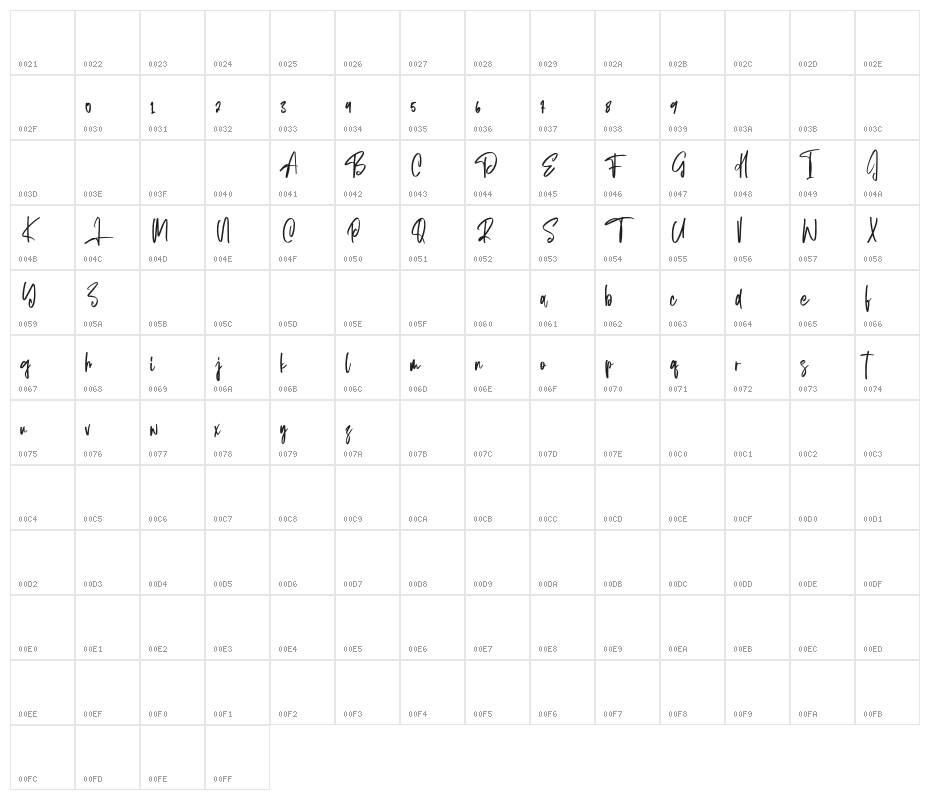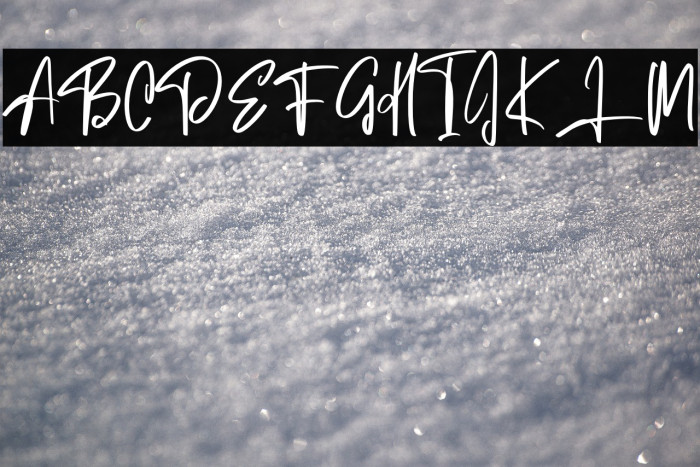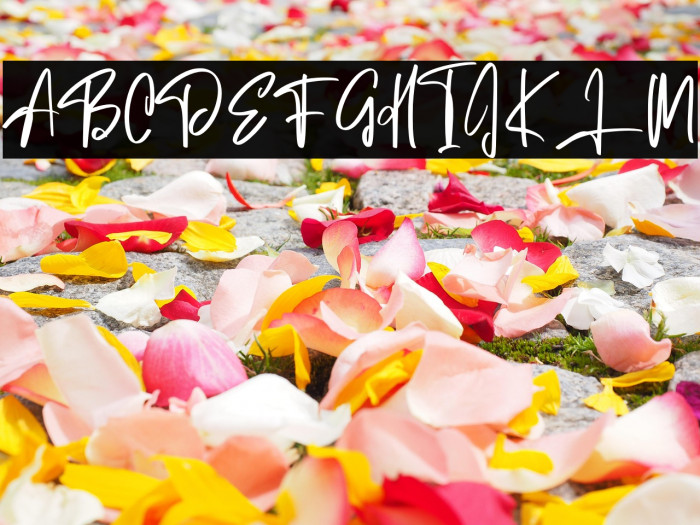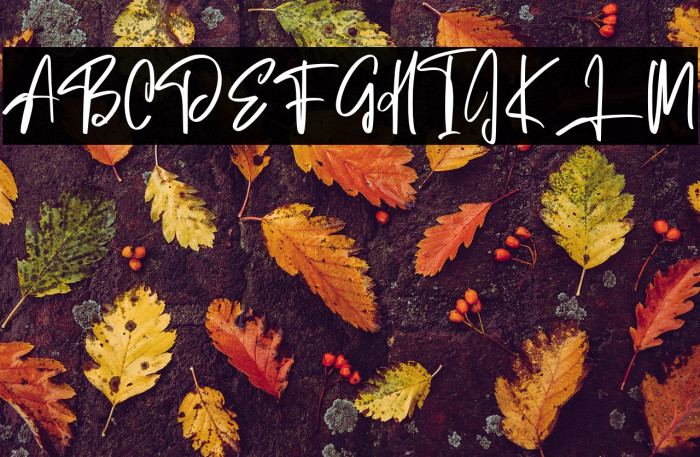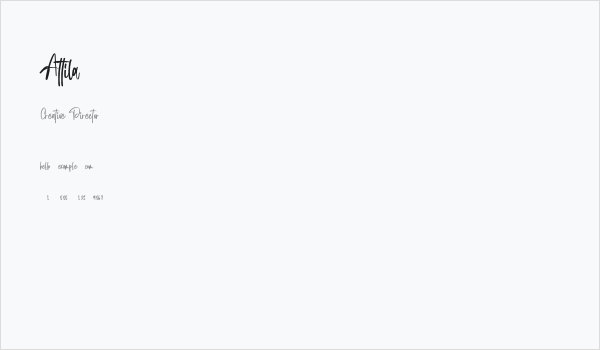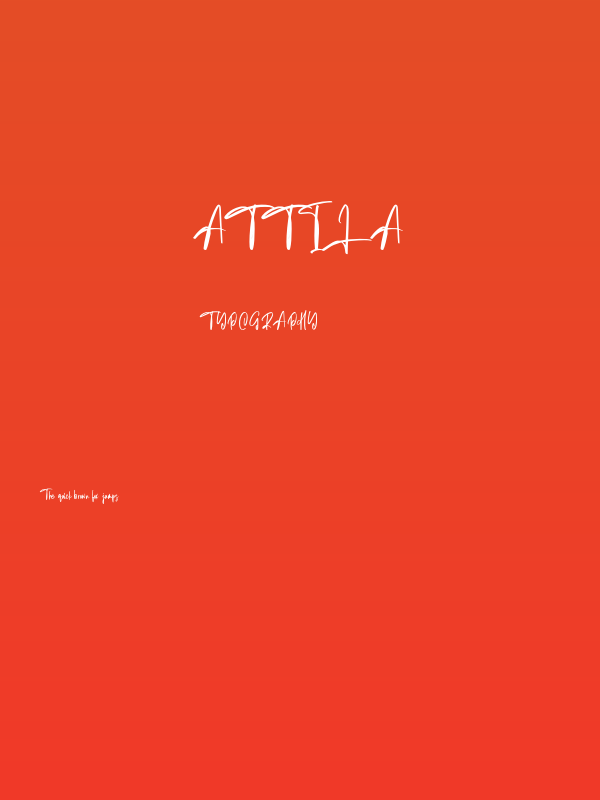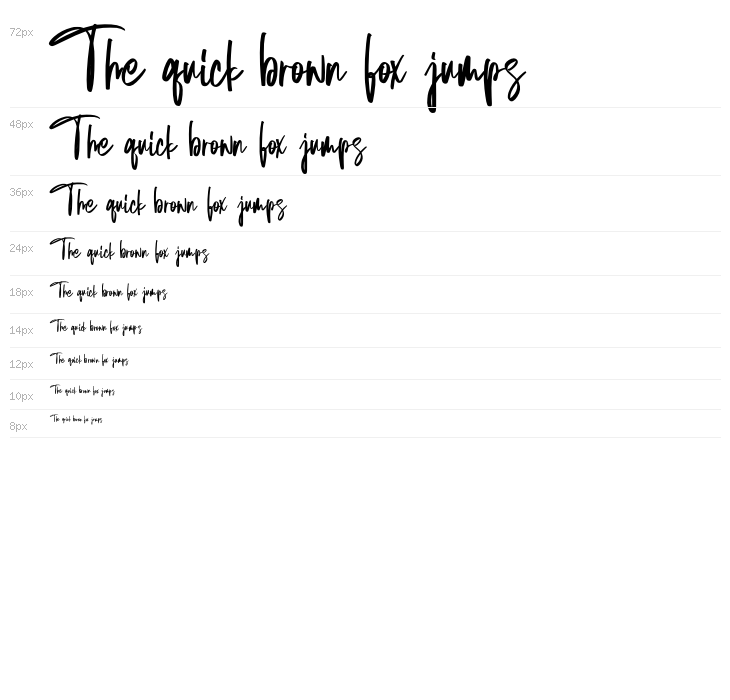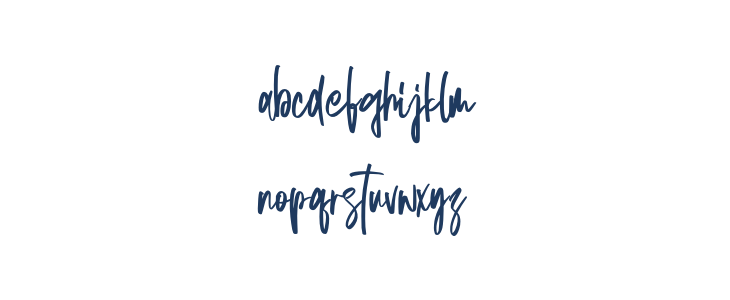
Attila Font
Attila Description
This font features a dynamic and expressive handwritten style, characterized by its fluid and flowing letterforms. The uppercase letters exhibit a playful yet elegant appearance, with varying stroke widths that add a sense of movement and energy. The lowercase letters maintain the same lively quality, with some characters extending below the baseline, enhancing its casual and informal look. The numerals are consistent with the overall style, offering a cohesive appearance. This font's unique charm makes it suitable for projects that require a personal touch.